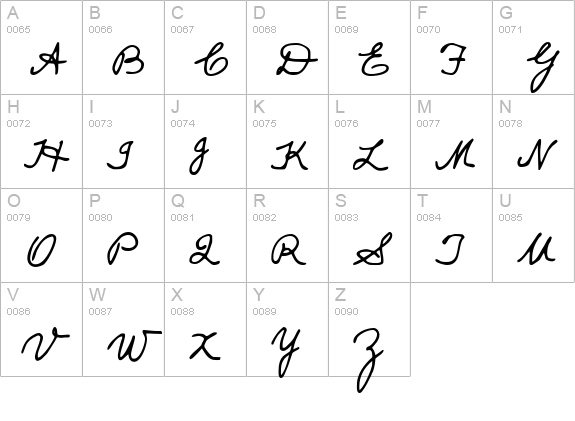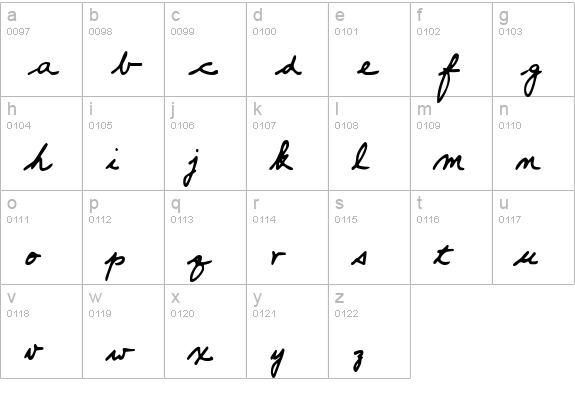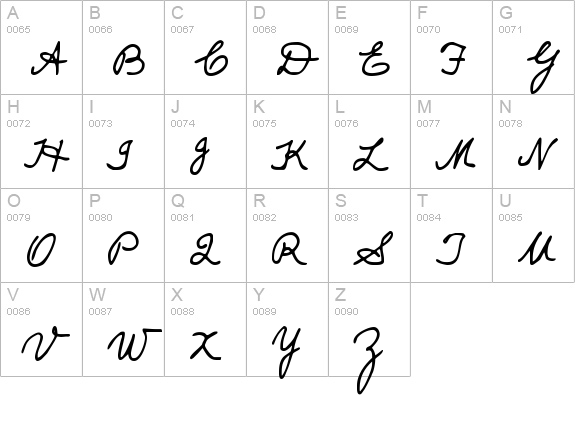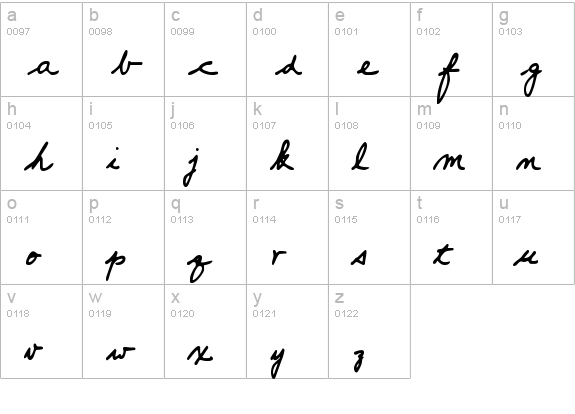
Popsies Font Details
Introducing Popsies font - a whimsical and playful typeface that will add a touch of charm to your designs. With its rounded edges and friendly appearance, Popsies is perfect for a variety of projects, from children's books to greeting cards to branding materials. This delightful font exudes a sense of joy and creativity, making it an ideal choice for any project that requires a fun and lighthearted feel. Best of all, Popsies font is available for free download at FontsMarket.com. Now you can easily access this delightful typeface and bring a touch of whimsy to your designs without any cost. Don't miss out on the opportunity to add Popsies font to your collection today and let your creativity shine!